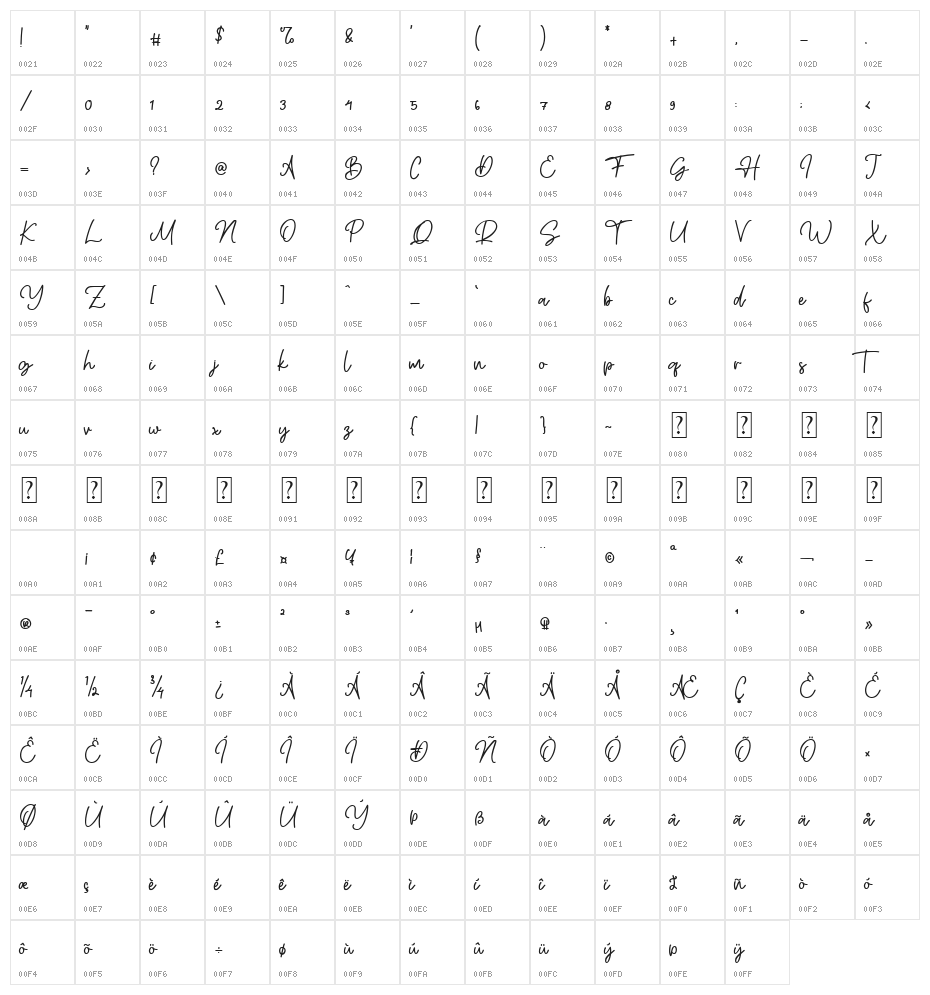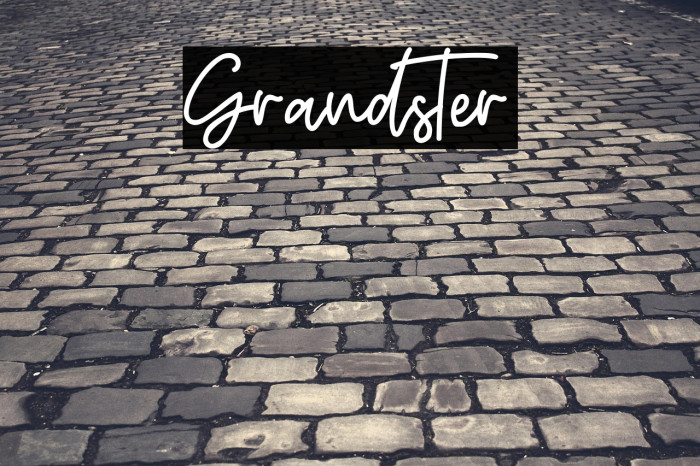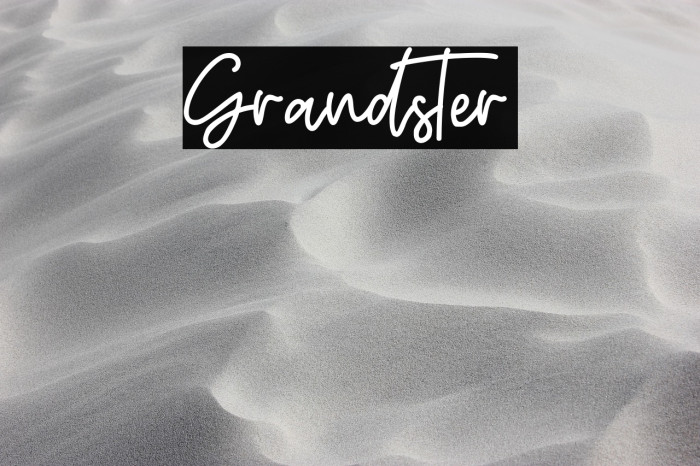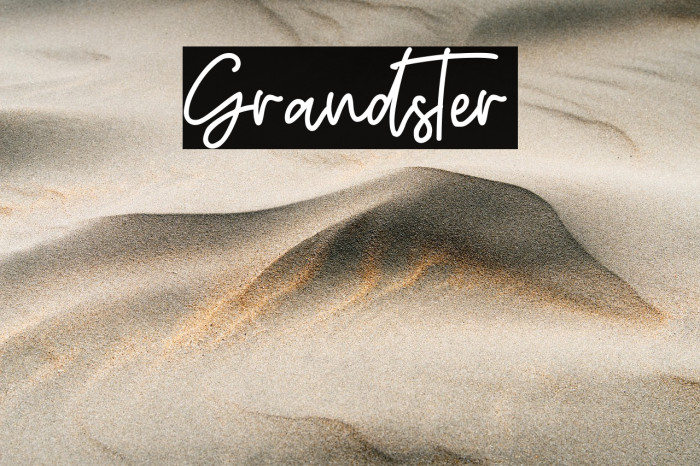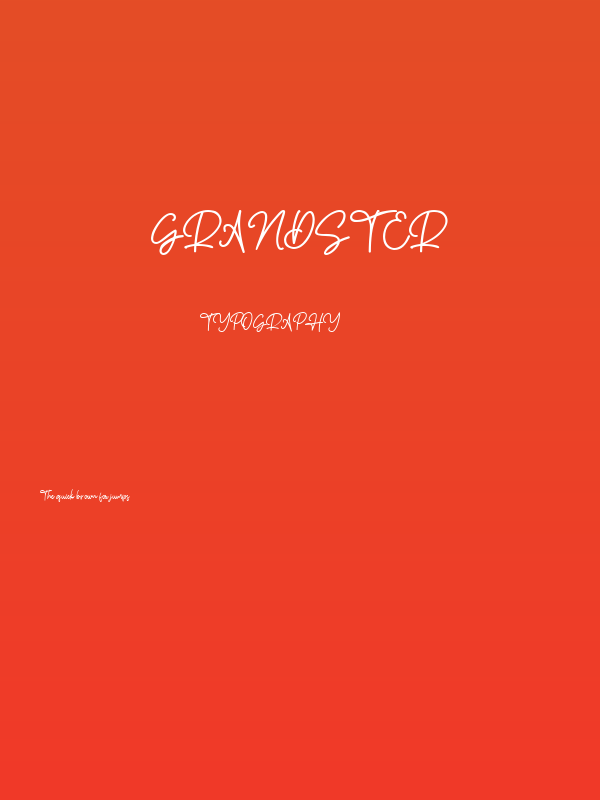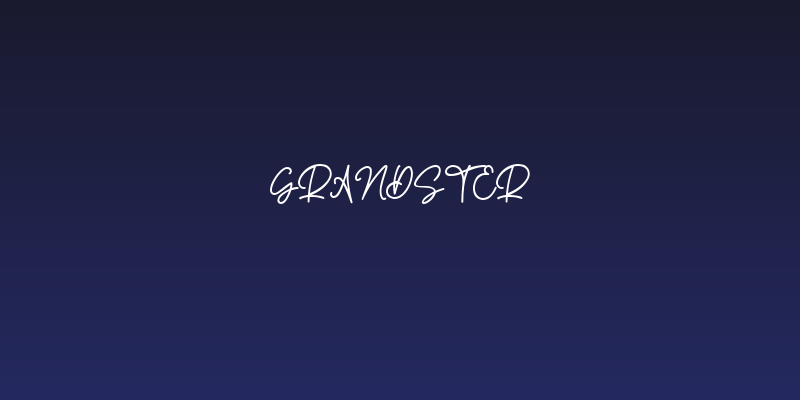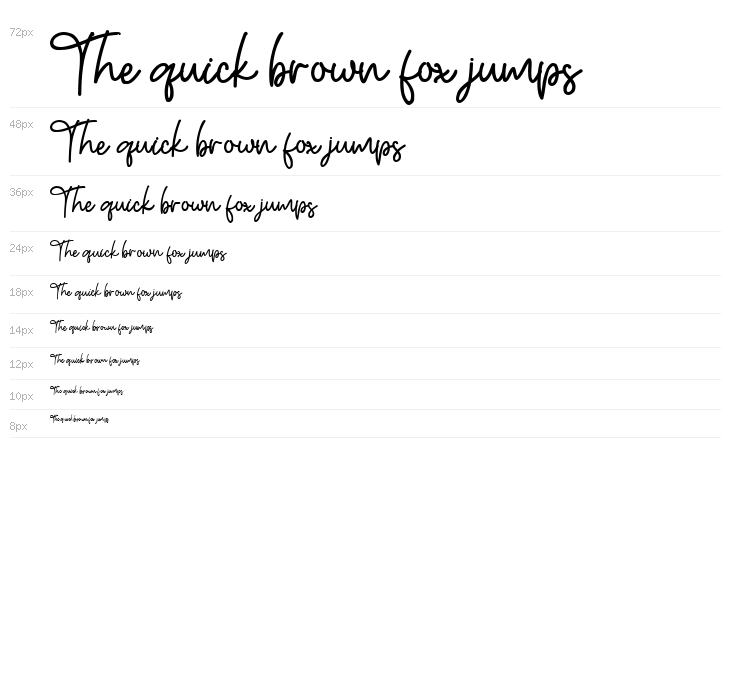
Grandster Font
Grandster Description
This font exudes a casual and elegant handwritten style, characterized by fluid and connected strokes that mimic natural handwriting. The uppercase letters are slightly more formal with a consistent slant, while the lowercase letters maintain a playful and approachable feel. The numerals and special characters complement the overall aesthetic, ensuring versatility across various applications. The font's smooth curves and balanced proportions make it suitable for projects that require a personal touch, such as invitations, greeting cards, and branding materials. Its legibility is maintained even at smaller sizes, making it a practical choice for both print and digital media.
| Overall Style | Casual, Elegant |
| Use Case | Headlines, Logos, Invitations |
| Proposed Projects | Ideal for invitations, greeting cards, branding, and personal projects. |